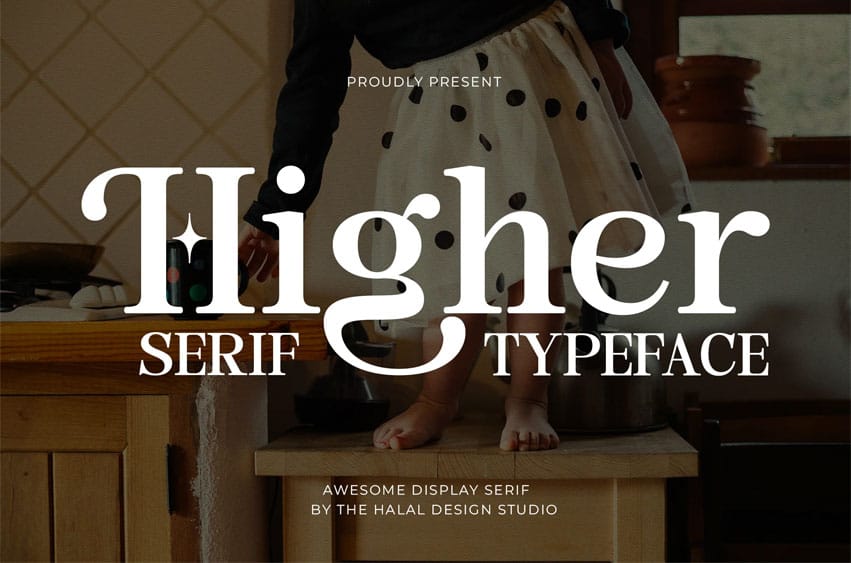
Higher Regular Font is a modern display serif font designed to create a bold, elegant, and sophisticated visual impact. Featuring high contrast strokes, sharp serifs, and refined letterforms, it is perfect for luxury branding, editorial layouts, headlines, logos, packaging, and high-end design projects.
This typeface combines classic serif aesthetics with a contemporary display style, making it ideal for eye-catching typography in both print and digital media. With ligatures, alternates, and multilingual support, Higher Regular allows you to craft distinctive and professional designs with ease.
- Display Serif Style – Bold and elegant for headlines and branding
- Ligatures & Alternates – Enhanced typographic flexibility
- Multilingual Support – Supports multiple languages